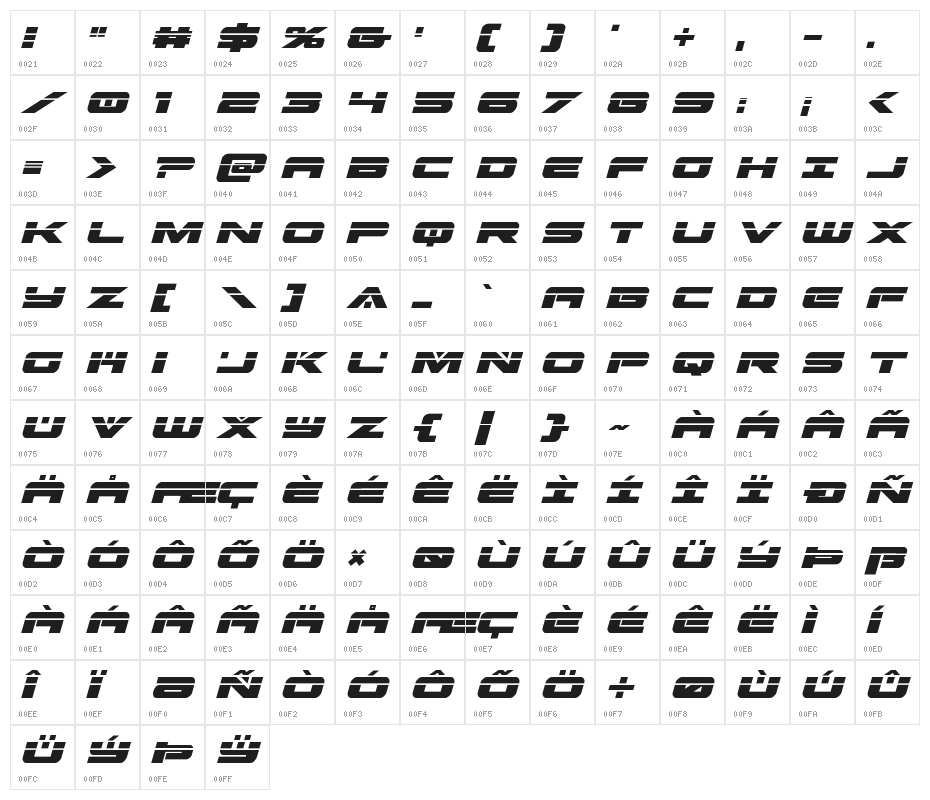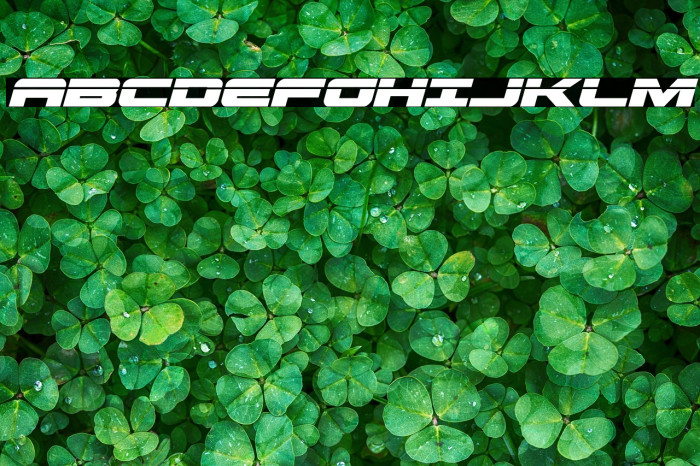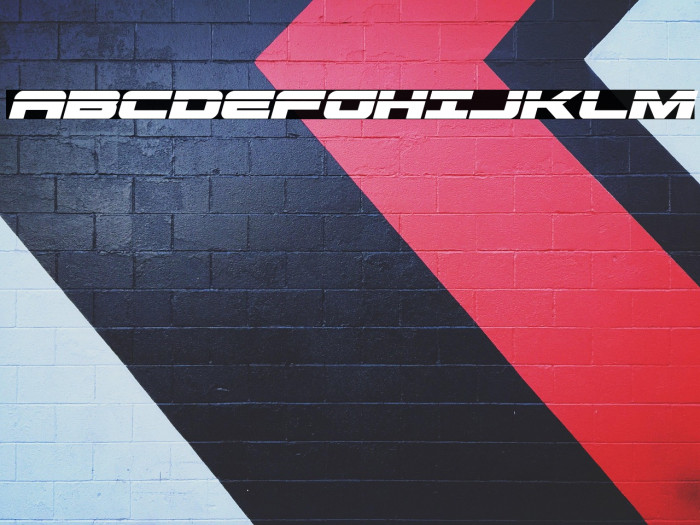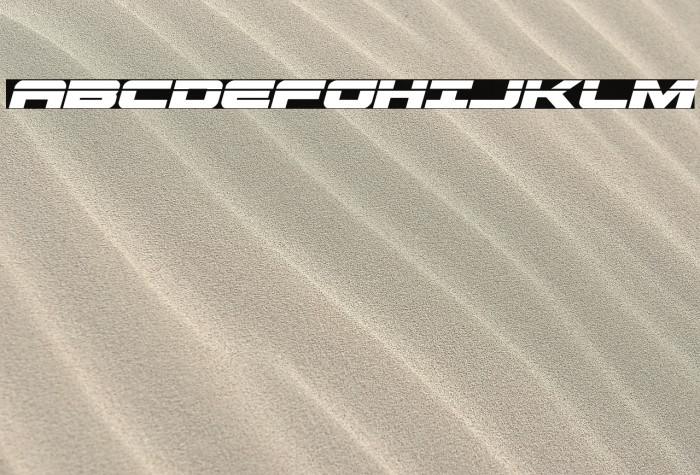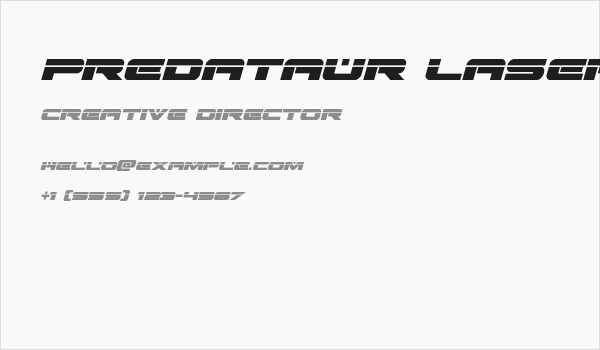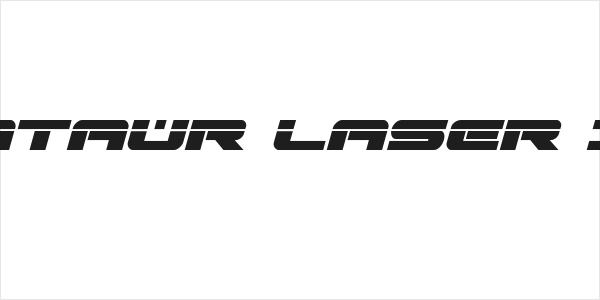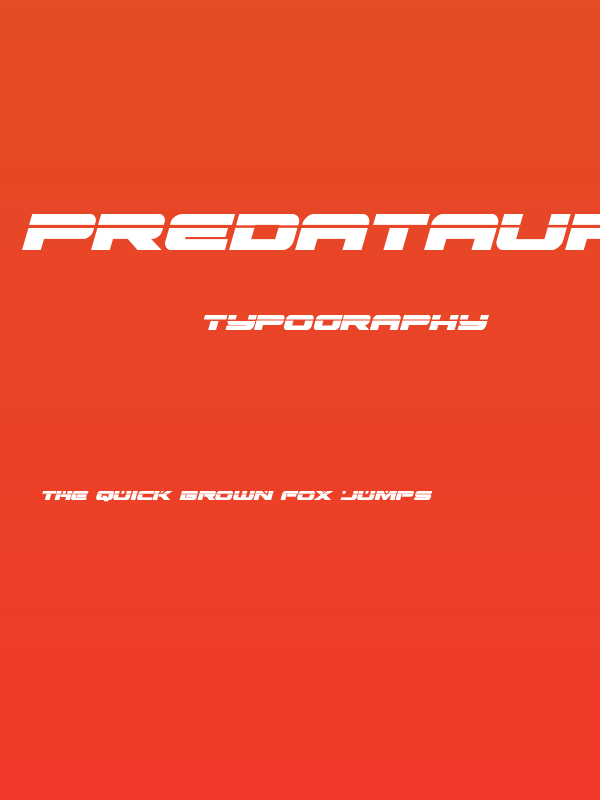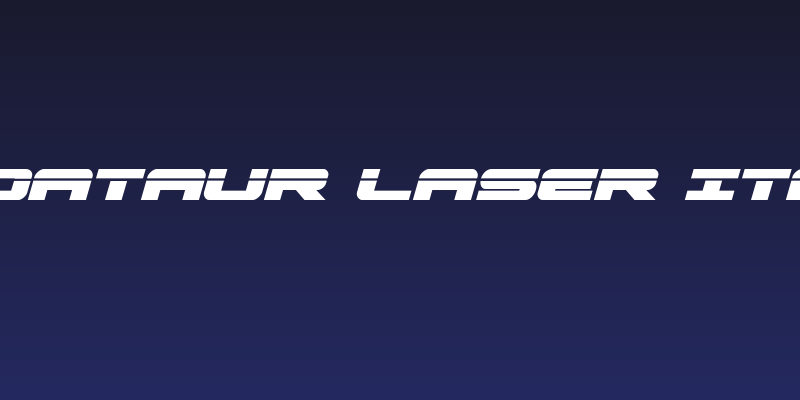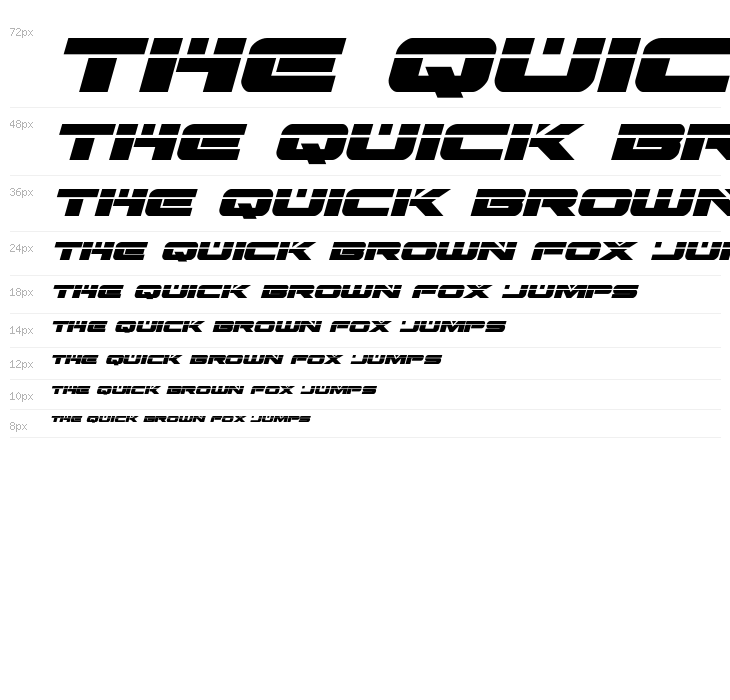
Predataur Laser Italic Font
Predataur Laser Italic Description
This font features a futuristic and angular design, characterized by sharp edges and a sleek, italicized form. The letters are bold and have a distinct slant, giving them a dynamic and fast-paced appearance. The geometric shapes and clean lines contribute to a modern and high-tech aesthetic. The font maintains a consistent stroke width, providing a uniform look across all characters. Its unique style is suitable for projects that require a cutting-edge and innovative feel.
| Proposed Projects | Ideal for technology branding, sci-fi movie posters, video game titles, and modern advertising campaigns. |